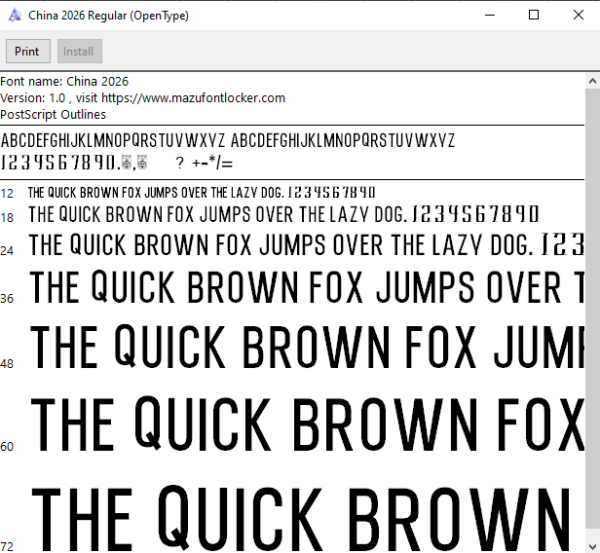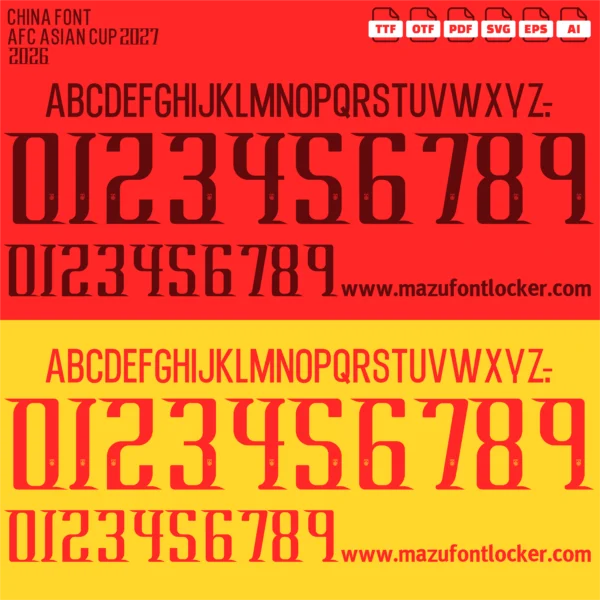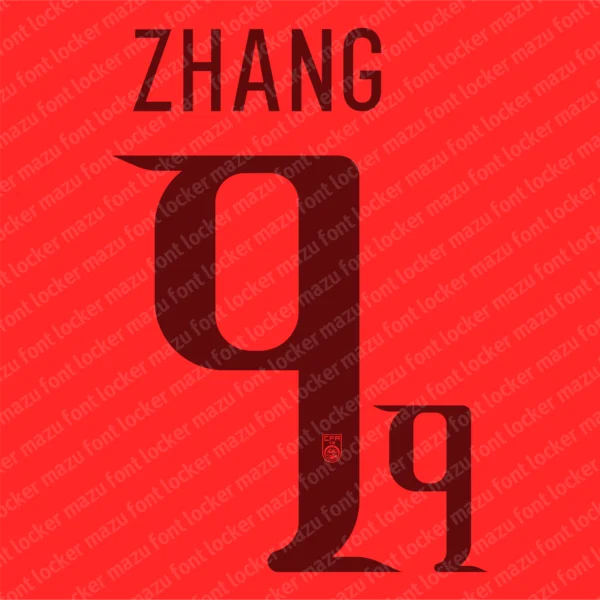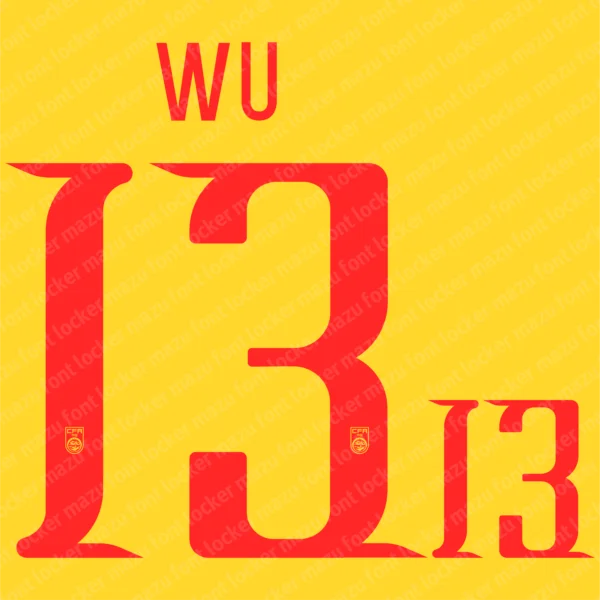
China 2026 Font Vector – Epic Dragon Majesty Masterpiece
This premium font captures the commanding, iconic, majestic, and battle-ready lettering that embodies the unstoppable Chinese spirit — delivering raw Dragon fire, explosive winning energy, relentless never-say-die mentality, tactical supremacy, and legendary Team Dragon warrior grit.
China 2026 Font Vector – Authentic Dragon Typeface
The China 2026 Font Vector is a premium typeface that captures the bold, modern match lettering style inspired by the China national team and their journey towards the 2026 FIFA World Cup. This high-quality vector font kit reflects the powerful, ambitious, and passionate typography that represents the pride, resilience, and rich football heritage of Chinese football.
Designed for professional designers and passionate China fans, the China 2026 Font Vector delivers perfect authenticity for creating realistic jersey mockups, fan merchandise, matchday posters, social media graphics, and football content. It pairs beautifully with the iconic red home kit featuring the famous China crest.
This font stands out because of its sharp vector precision and strong national identity. Every letter and number is crafted to evoke the modern style associated with the China national team in the 2026 era. Whether you are making realistic kit templates, fan art, or exciting China football content, the China 2026 Font Vector gives your designs that authentic Dragon look.
The letterforms in the China 2026 Font Vector are tall, bold, and highly readable. The strokes have a strong, clean weight with excellent edge definition that looks powerful on the back of jerseys while maintaining the modern Chinese spirit and vibrant energy.
• Full uppercase A–Z and numbers 0–9 in authentic China 2026 style
• China crest glyph – Press the “:” (colon) symbol to insert the China crest